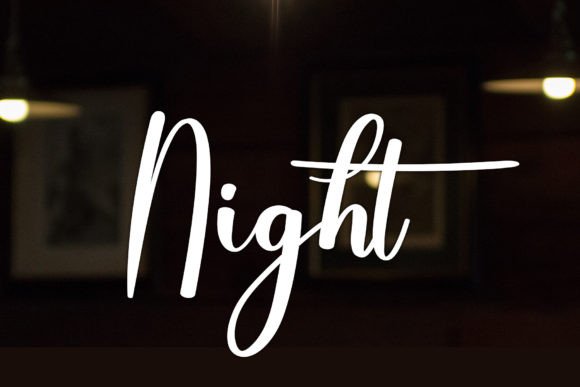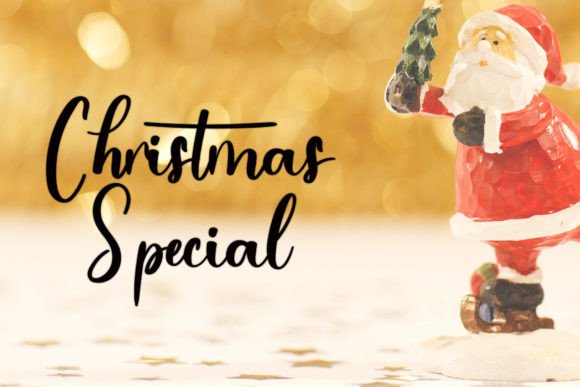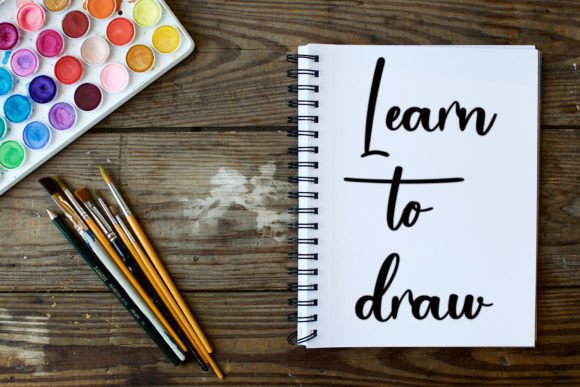
Introduction to Hunthing Font
Remember the moment when you stumble upon the perfect font for your creative project? It’s like finding the missing piece of a puzzle that brings your entire design to life. For designers and artists, this moment is priceless. And if you’re one of them, you’re in luck because we’re about to introduce you to the Hunthing Font, a game-changing handwritten font that will elevate your designs to the next level.
The Hunthing Font is a masterpiece of elegance and sophistication, carefully crafted to provide a unique touch to any design. Whether you’re working on a personal project or creating content for your Instagram, this font will add a personal and exclusive feel to your work. With its high-quality design and transparent background, the Hunthing Font is the perfect design resource for any creative endeavor.
Key Features of Hunthing Font
- High-quality, unique font design ideal for creative projects requiring a distinctive touch.
- Unique characteristics: Hunthing Font features a bold, handwritten style with dynamic letterforms, making it perfect for adding a personal touch to creative projects.
Honest Review: Hunthing Font
I recently stumbled upon the Hunthing Font, and I’m excited to share my thoughts on this design resource. As a designer, I’m always on the lookout for high-quality fonts that can elevate my creative projects.
- The font features a unique, modern design that’s perfect for creative projects that require a touch of sophistication.
- The Hunthing Font may not be suitable for projects that require a traditional or serif font style.
- The font family is relatively small, so you may need to experiment with different combinations to achieve the desired look.
Overall, I’m impressed with the Hunthing Font’s potential for elevating creative projects. While it may have some limitations, its unique design and free download make it a valuable design resource. I’d definitely consider using it for future projects that require a modern, sophisticated look.
The Hunthing Font is ideal for a variety of creative projects, including business presentations, marketing materials, and personal designs. Use it to add a touch of elegance and sophistication to your project. With a transparent background and high-quality design, the Hunthing Font is a valuable design resource for any creative project.